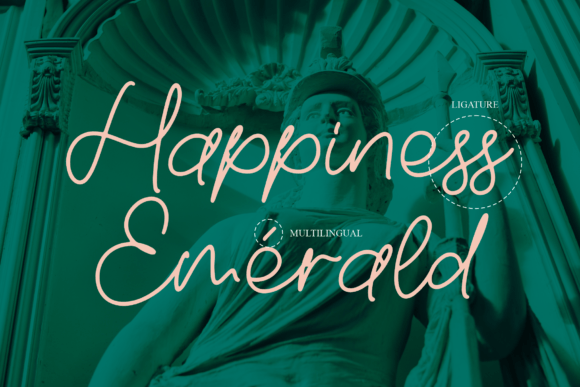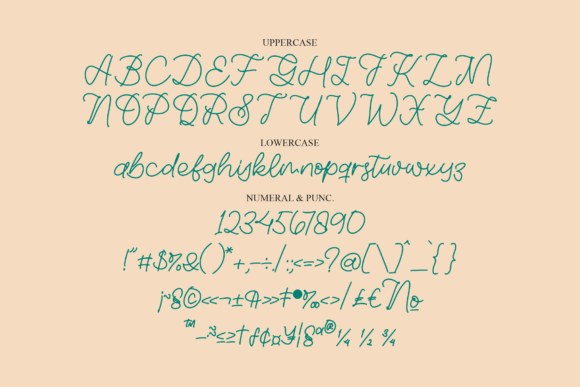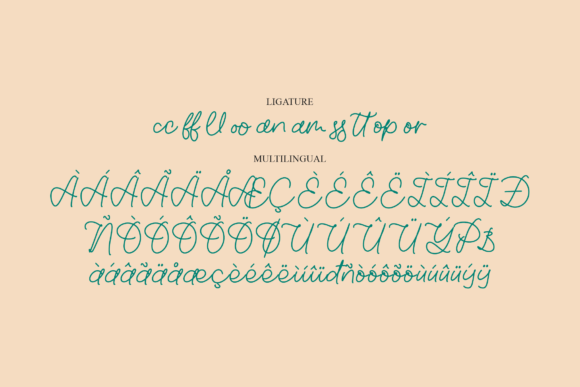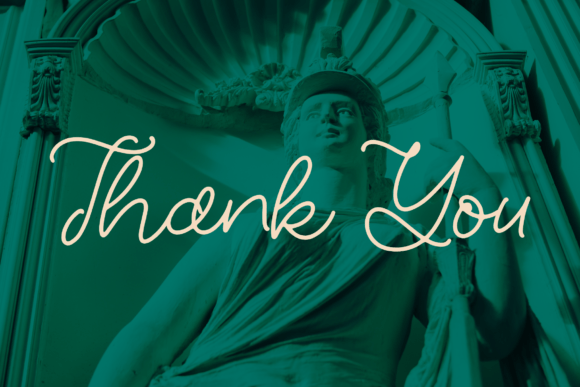
About Emerald Micigan Font
Emerald Michigan – Monoline Script Font is a versatile and stylish typeface that lends itself well to a wide range of design projects. With its monoline script style, it brings a contemporary and elegant feel to your creations. Here’s how Emerald Michigan can enhance different types of projects:
1. **Logos and Branding Projects:**
– Emerald Michigan’s monoline script adds a modern and stylish touch to logos and branding materials. It helps create a unique and memorable brand identity.
2. **Homeware Designs and Product Packaging:**
– Whether it’s on homeware items or product packaging, Emerald Michigan contributes to the overall aesthetics, making your products look contemporary and visually appealing.
3. **Printed Materials (Mugs, Quotes, Posters, Shopping Bags, T-shirts):**
– Emerald Michigan enhances the design of printed materials such as mugs, quotes, posters, shopping bags, and T-shirts. Its monoline script taste brings a sense of artistry and sophistication.
4. **Book Covers and Name Cards:**
– For book covers, Emerald Michigan provides a modern and eye-catching script, making your titles and author names stand out. It’s equally fitting for name cards, giving a personal and stylish touch.
5. **Invitation Cards and Greeting Cards:**
– Emerald Michigan is well-suited for creating beautiful and inviting invitation cards. Its monoline script adds a touch of modern elegance to greeting cards for various occasions.
6. **Labels, Watermarks, and Photography:**
– Use Emerald Michigan for labels on products, giving them a contemporary and handmade feel. It’s also suitable as a watermark on photos, adding a signature touch to your photography.
7. **Special Events and Social Media:**
– Whether for special events or social media graphics, Emerald Michigan stands out with its clean and modern appearance. It brings a sense of sophistication to various digital designs.
In summary, Emerald Michigan – Monoline Script Font is a beautiful script typeface that elevates the visual appeal of a wide range of projects. Whether you’re working on branding, printed materials, invitations, or special events, Emerald Michigan brings a monoline script taste that adds a touch of modern elegance to your designs.